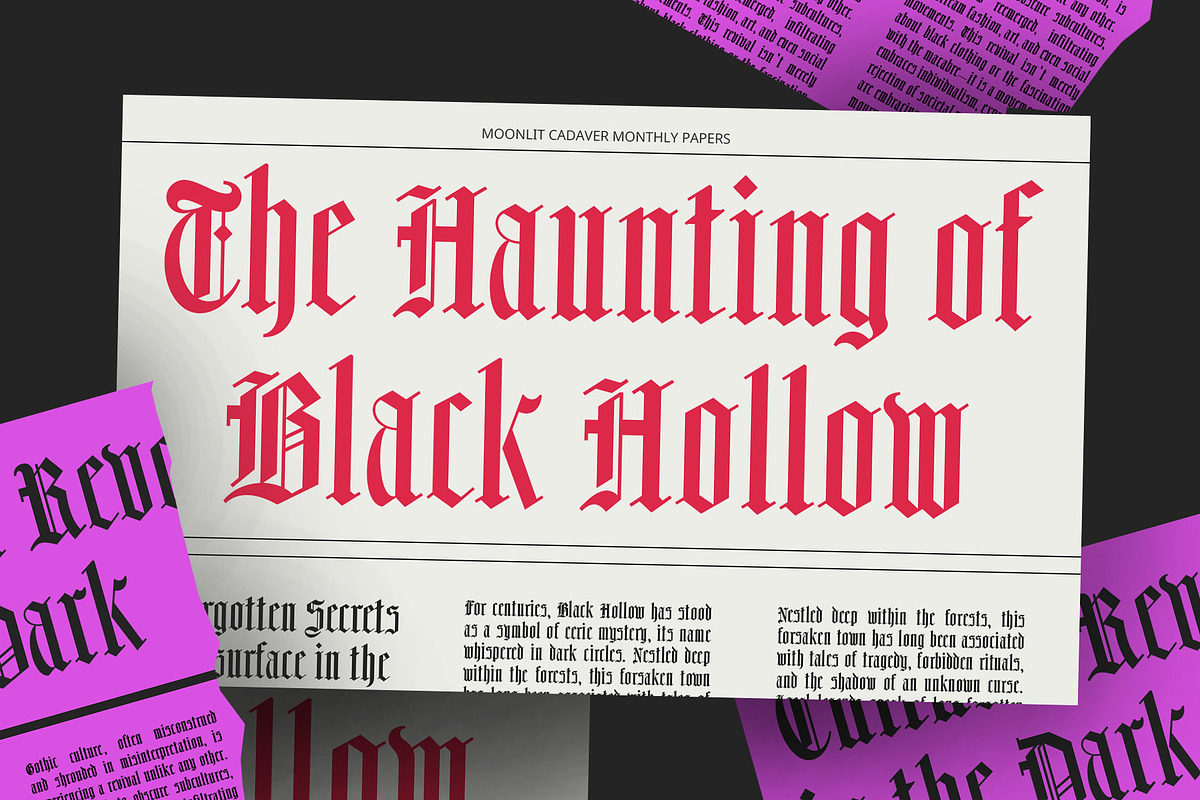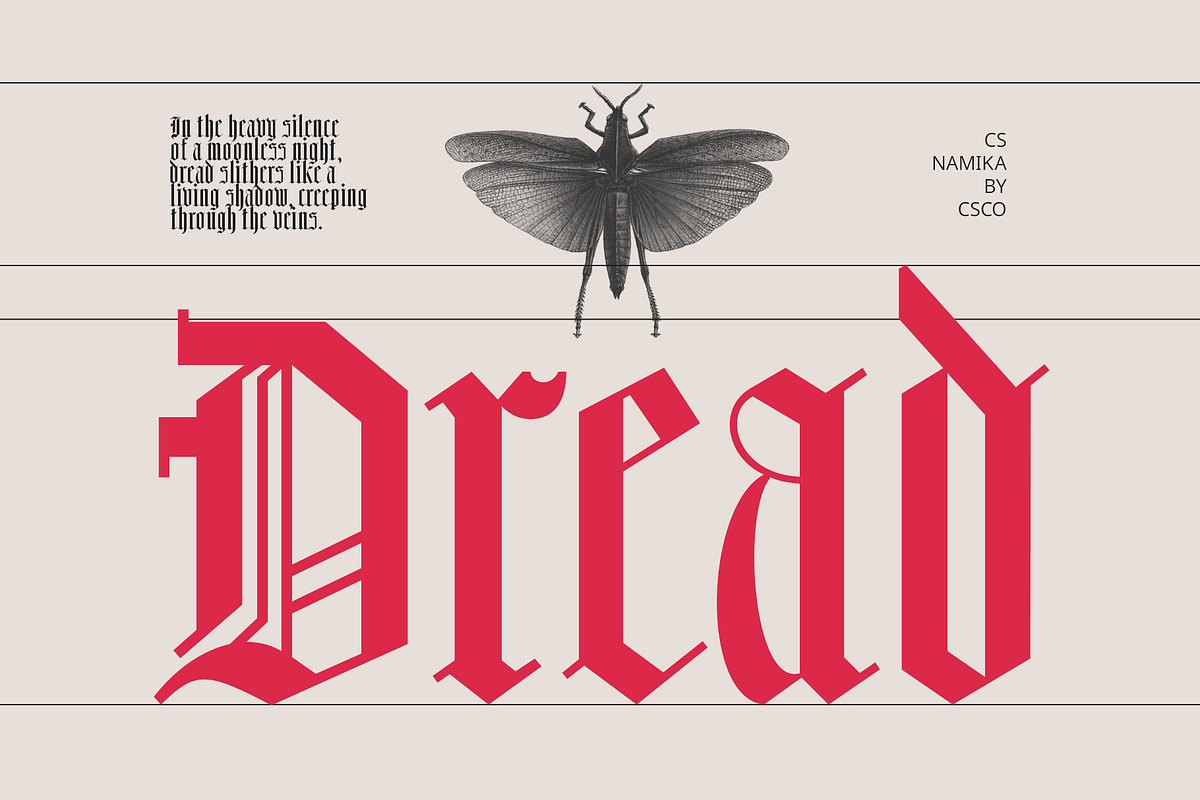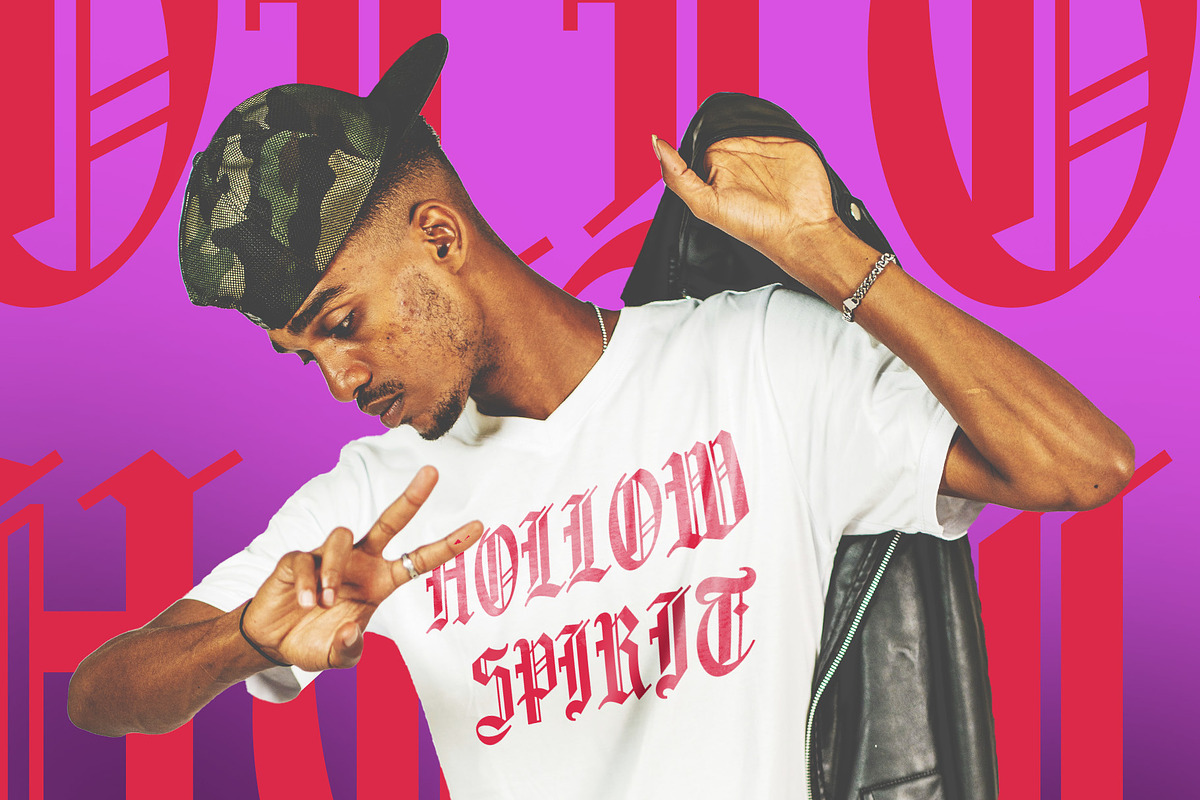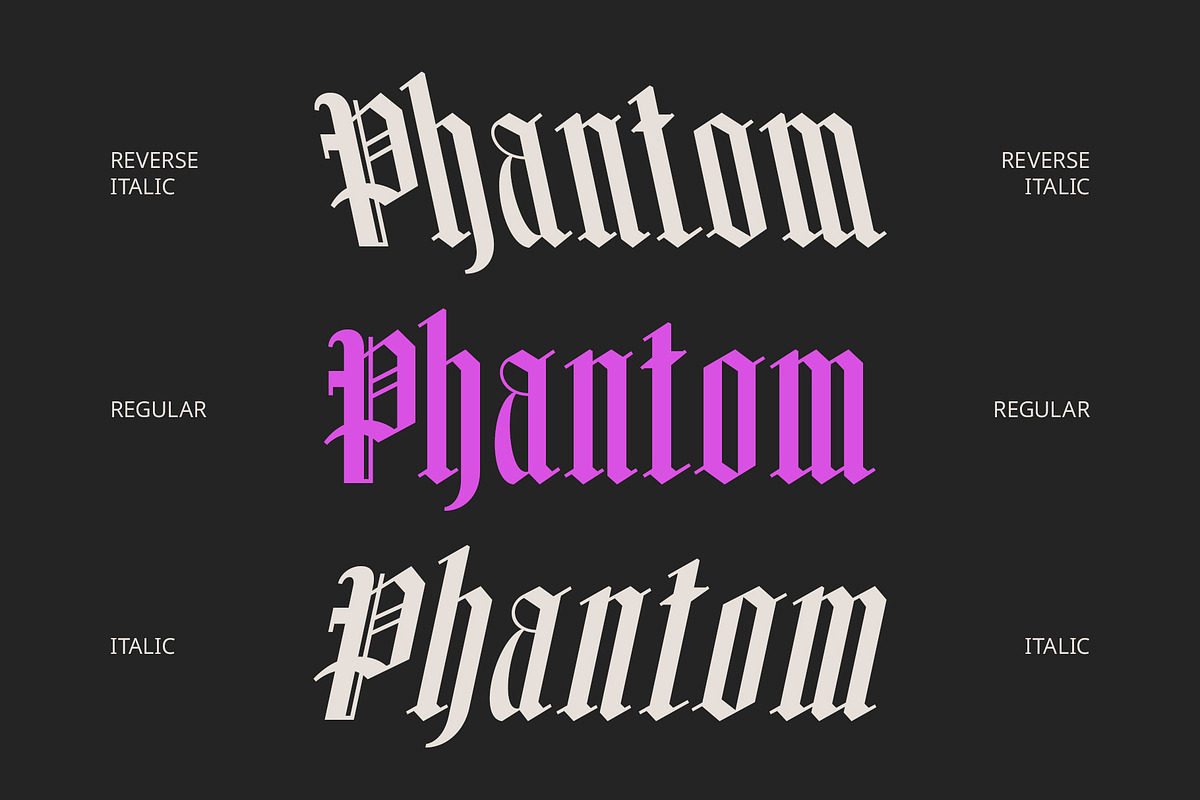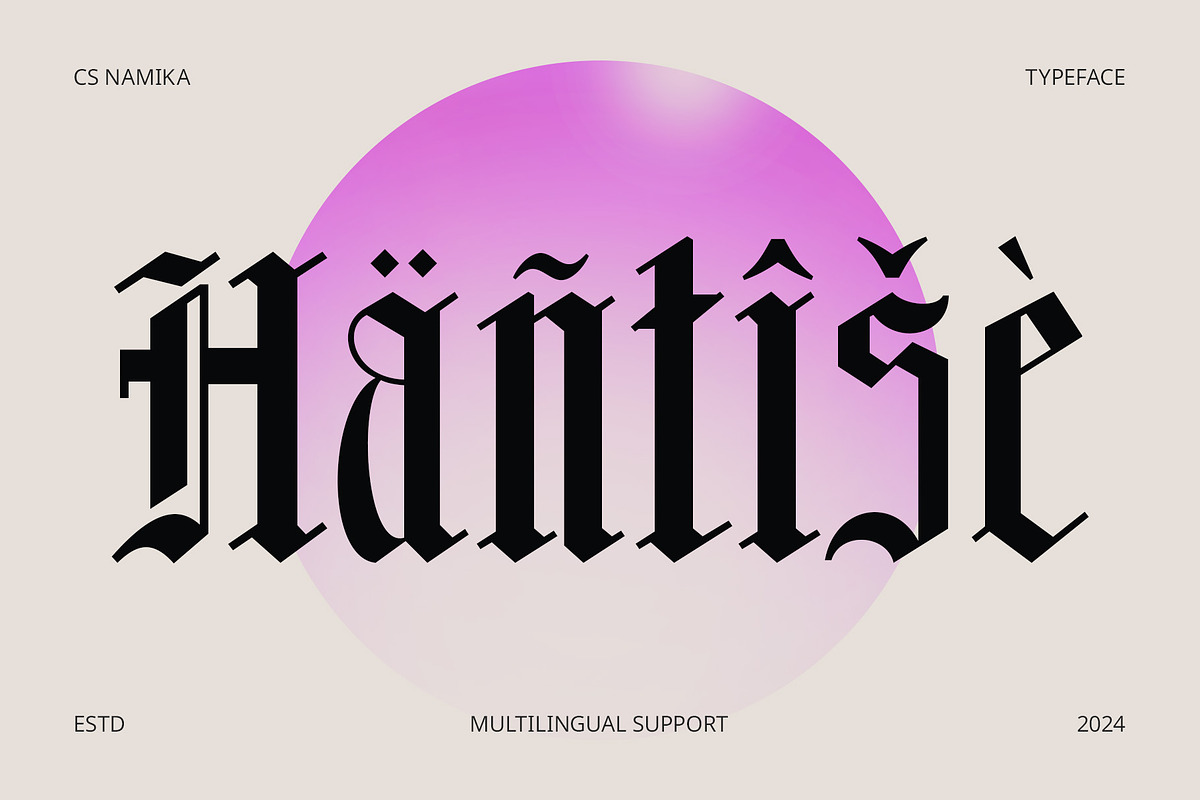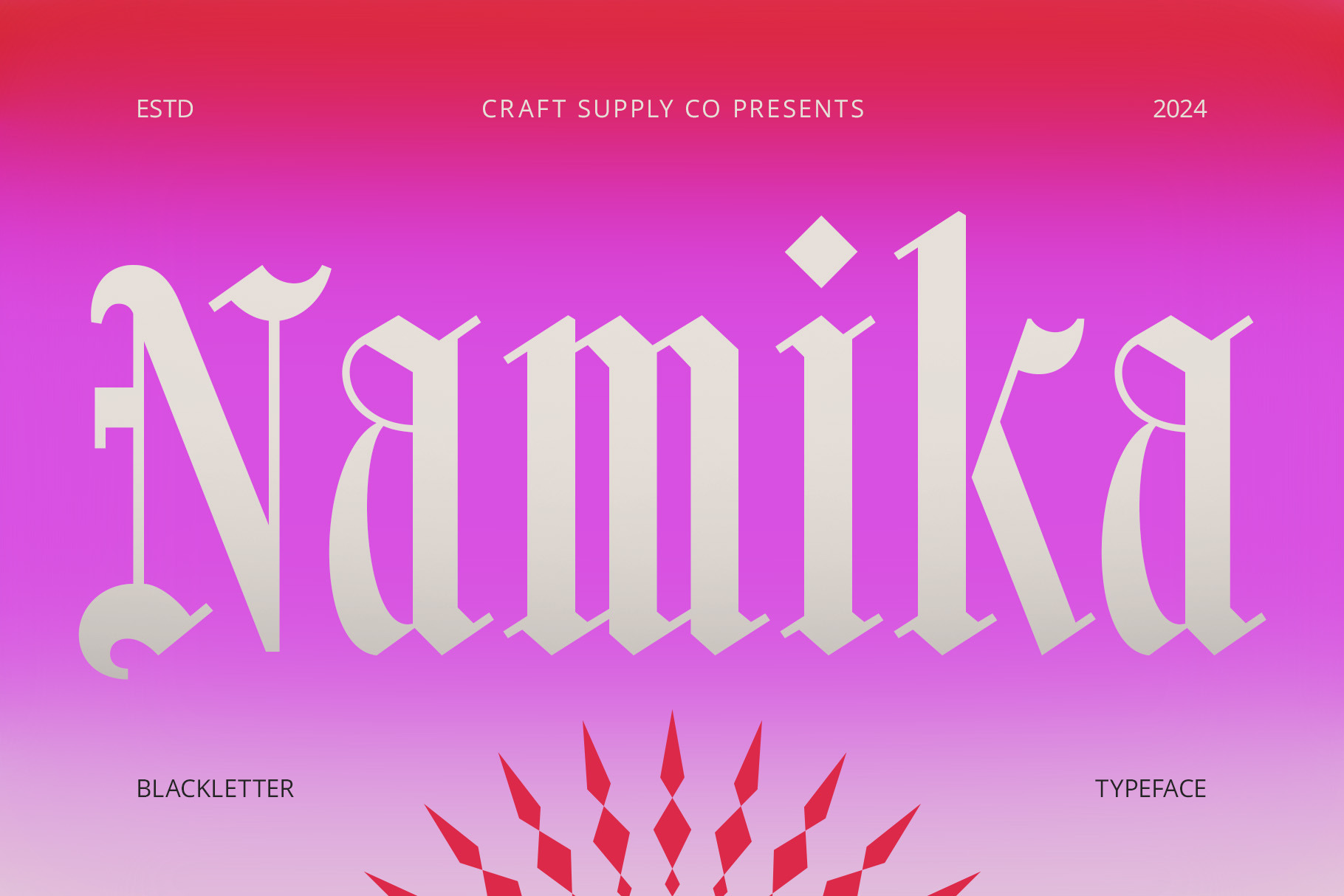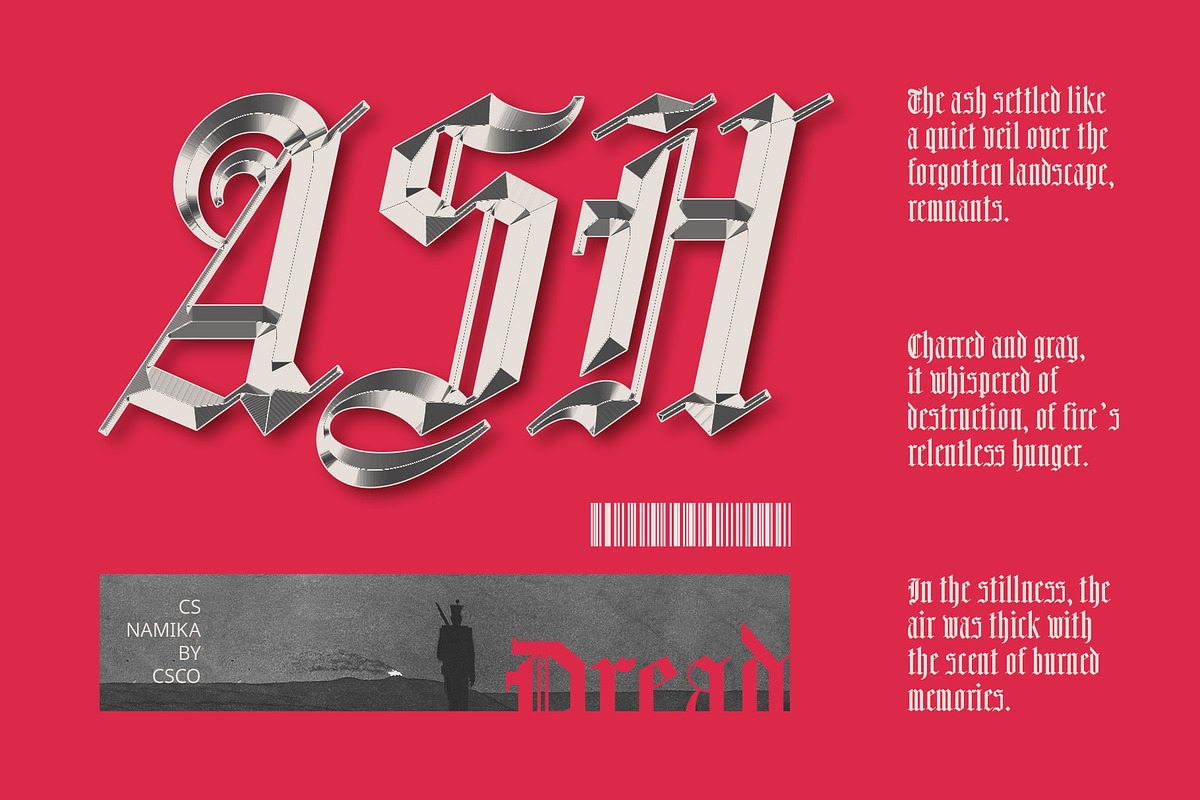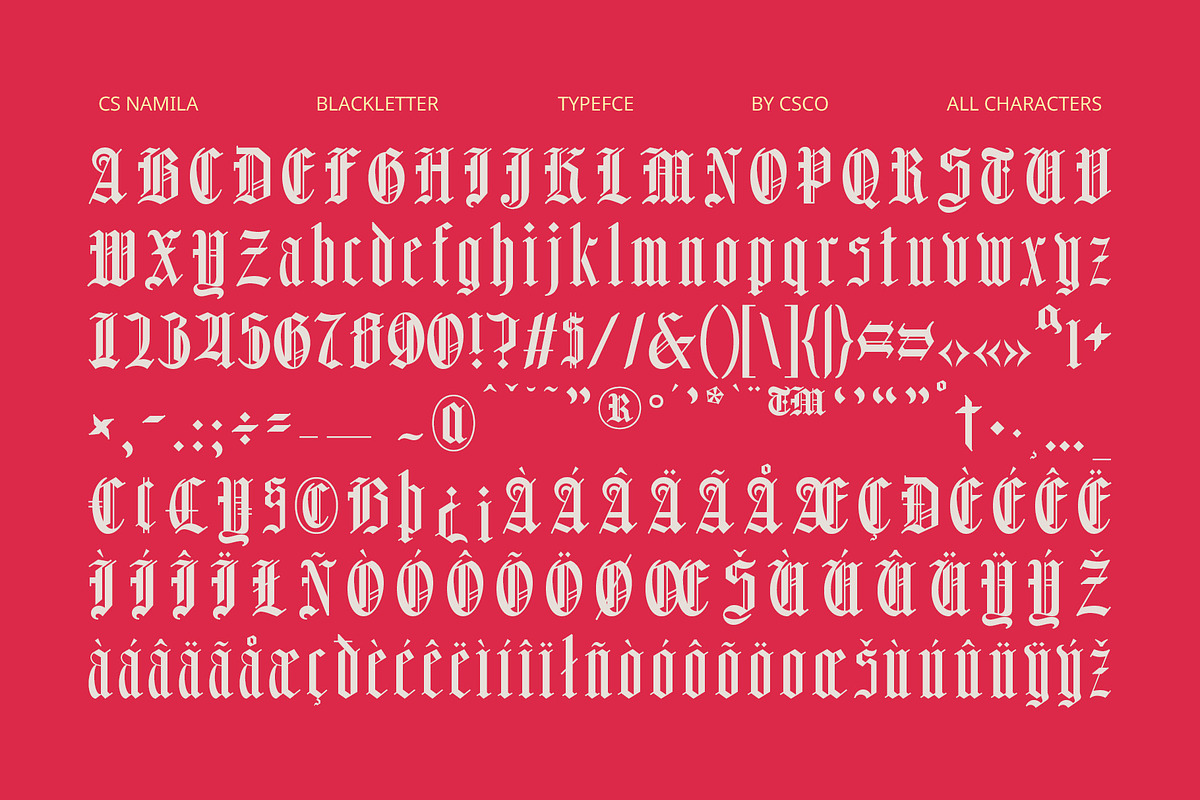
CS Namika – Blackletter Font
CS Namika – Blackletter Font: A Timeless Tribute to Elegance and Tradition
Display Blackletter Font with Intricate Details CS Namika is a striking display font rooted in the classic blackletter style, featuring bold vertical strokes, intricate curved details, and sharp angles. Inspired by medieval calligraphy, this font embodies tradition, sophistication, and authority, making it an ideal choice for designs that demand a strong, elegant presence. Its detailed craftsmanship creates a visual impact that captures attention and leaves a lasting impression.
Exudes Historical Charm and Sophistication Drawing from its historical roots, CS Namika carries an aura of tradition and refinement. The bold and dramatic letterforms evoke a sense of grandeur and prestige, perfect for designs aiming to convey authority or luxury. Whether used for branding, editorial projects, or decorative typography, this font brings a timeless charm that adds depth and character.
Perfect for Formal and Artistic Designs Ideal for formal invitations, luxury branding, or projects seeking a historical essence, CS Namika excels in delivering an elegant, sophisticated vibe. Its intricate design and commanding presence make it suitable for book covers, certificates, or any creative endeavor requiring a touch of classic artistry.